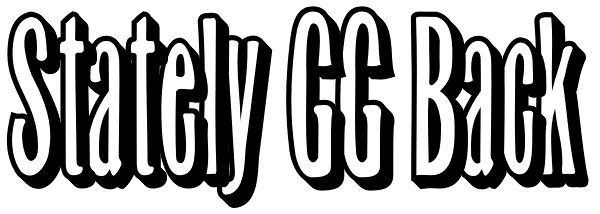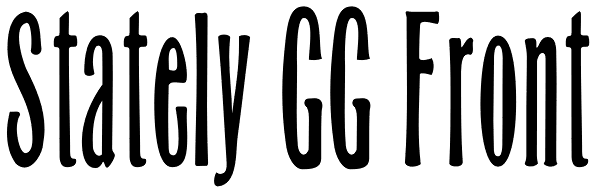
Stately GG
TWO LAYERED FONT: Be sure to get both the FRONT and the BACK! Maintaining simultaneous shades of whimsy and versatility is no simple feat, but the meticulously constructed Stately Gothic accomplishes just that, elegantly. Stately Gothic is a redrawn...
Stately GG Back
Stately GG Front